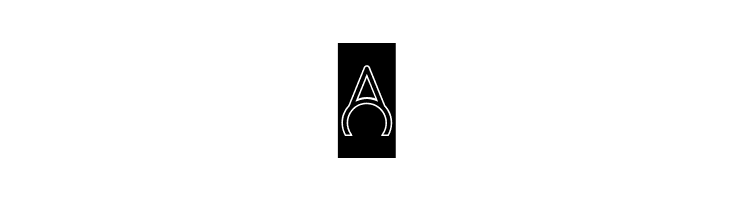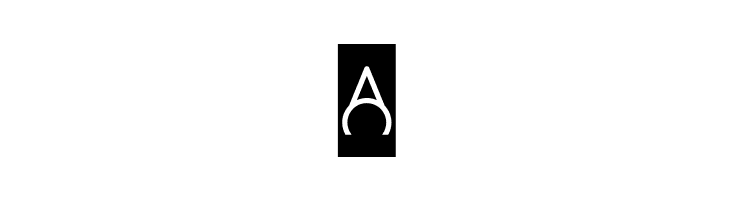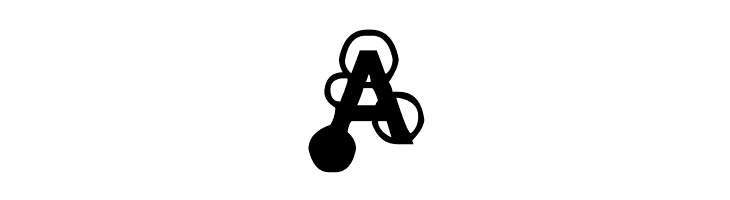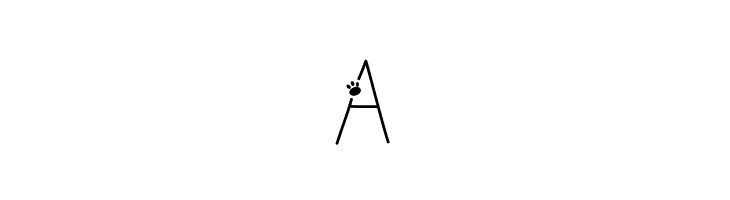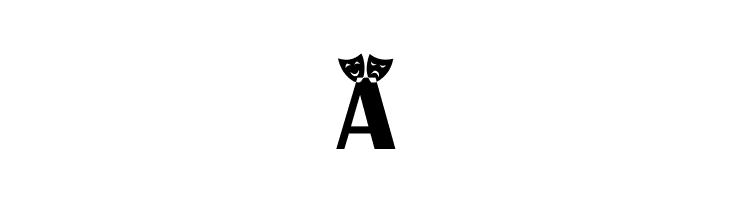
A vintage, decorative font with a distressed texture and unique serifs.
A vintage, italicized decorative font with bold, slanted characters and intricate detailing.
A modern, playful font with geometric shapes and nature-inspired elements.
A bold, modern font with playful, nature-inspired elements.
A bold, italic font with decorative leaf-like elements and a modern, flowing style.
A modern, italic font with nature-inspired elements and smooth, flowing lines.
A modern, hollow font with decorative, nature-inspired elements.
A modern, hollow, and decorative font with unique leaf-like elements.
A modern, geometric font with decorative accents and a futuristic style.
Ornate illustrative font with mythological and celestial motifs.
A bold, geometric font with thick borders and a modern, structured design.
A bold, wave-patterned font ideal for impactful and creative designs.
A geometric font with polygonal shapes and interconnected lines.
A bold, decorative font with intricate, tribal-inspired designs.
A geometric and angular font with a futuristic and edgy design.
A bold, decorative font with a dynamic wave pattern throughout each character.
A bold, playful font with a stitched outline, perfect for creative projects.
A thin, decorative font with a connected dot pattern, offering a modern and artistic look.
A thin, decorative italic font with intricate, interconnected segments.
A thin, decorative font with a skeletal, interconnected design.
A bold, decorative font with intricate brain-like patterns.
A playful, paw-embellished font with thin, elongated characters.
A bold, angular font with sharp, edgy strokes and a dynamic presence.
A bold, italic font with sharp, angular edges and a dynamic style.
A thorn-adorned decorative font with a rugged and edgy style.
A bold, 3D hollow font with shadow effects for striking displays.
A bold, three-dimensional font with a vintage, impactful style.
A bold, three-dimensional font with a striking shadow effect.
A playful, decorative font with circular motifs, ideal for eye-catching designs.
A playful, tentacle-inspired font with bold, dynamic characters.